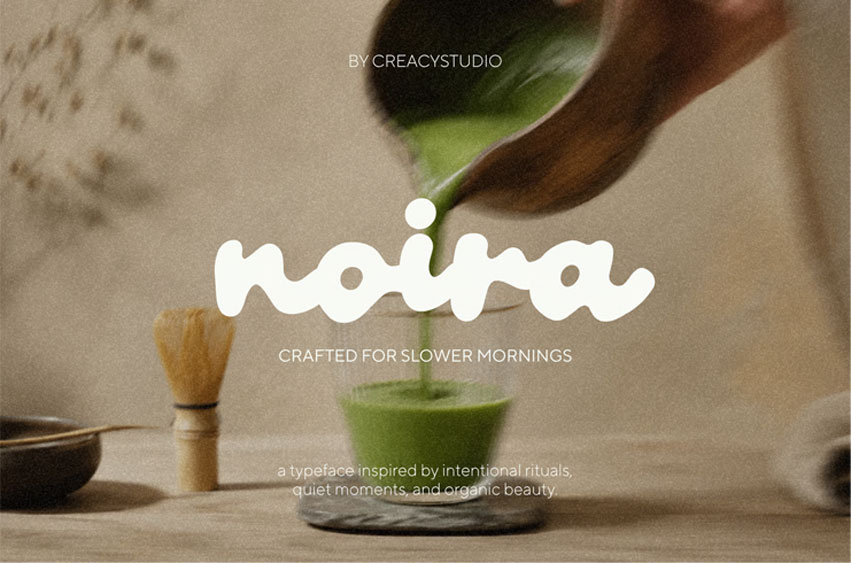
Noira Font
Noira Font is a playful and organic display font inspired by slow living, cozy rituals, and handcrafted aesthetics. With its rounded curves, flowing letterforms, and charming handmade feel, Noira brings warmth and personality into every design.
Perfect for branding projects that want to feel approachable, nostalgic, artistic, and naturally expressive.
Whether you’re designing café branding, packaging, social media graphics, children’s products, lifestyle content, or playful editorial layouts, Noira adds a soft and memorable character to your work.
• Uppercase & lowercase
• Numbers & punctuation
• Smooth organic curves
• Handcrafted aesthetic
• Café & bakery branding
• Packaging design
• Organic product labels
• Children’s branding
• Social media templates
• Quotes & posters
• Lifestyle branding
• Logo design
• Creative market products
Font Style
Noira combines:
• Retro-inspired softness
• Bubble handwritten charm
• Organic handmade flow
• Cozy lifestyle aesthetic
• Playful modern branding style
The font works beautifully for brands that want to feel: warm, calm, friendly, nostalgic, creative, and approachable.
Example Usage
• Matcha bar branding
• Bakery packaging
• Tote bag typography
• Picnic-themed posters
• Cozy café menus
• Handmade product labels
• Instagram quote posts
• Kids merchandise
• Creative stationery
Crafted carefully to help your designs feel more human, expressive, and emotionally warm.